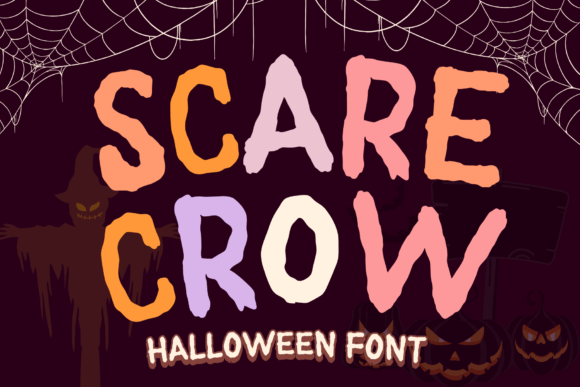
Scarecrow Font: The Perfect Halloween Decorative Font for Your Projects
As the spookiest season approaches, designers and crafters are on the lookout for the perfect font to add a touch of Halloween magic to their projects. Look no further than the Scarecrow Font, a playful and authentic decorative font that’s ideal for a wide range of applications. In this article, we’ll explore the features and benefits of the Scarecrow Font, and show you how to make the most of this fantastic font in your designs.
What is Scarecrow Font?
The Scarecrow Font is a Halloween-themed decorative font designed to evoke the playful and spooky spirit of the season. With its rustic, hand-drawn feel, this font is perfect for adding a touch of autumnal charm to your projects. Whether you’re creating blog posts, logos, branding materials, ads, invitations, greeting cards, planners, photo albums, or decorations, the Scarecrow Font is the perfect choice.
Why Choose Scarecrow Font?
So why choose the Scarecrow Font for your Halloween projects? Here are just a few reasons:
- Playfulness: The Scarecrow Font is designed to be playful and fun, making it perfect for projects that require a lighthearted touch.
- Authenticity: With its rustic, hand-drawn feel, the Scarecrow Font has an authentic, homemade quality that’s perfect for creating unique and eye-catching designs.
- Versatility: The Scarecrow Font can be used for a wide range of projects, from blog posts and logos to invitations and decorations.
10 Project Ideas for Scarecrow Font
Here are just a few project ideas to get you started with the Scarecrow Font:
- Blog posts: Add a touch of Halloween magic to your blog posts with the Scarecrow Font. Use it for headings, titles, and even body text to create a spooky and inviting atmosphere.
- Logos and branding: Create a unique and eye-catching logo for your business or brand with the Scarecrow Font. Perfect for seasonal promotions or limited-time offers.
- Ads and flyers: Use the Scarecrow Font to create attention-grabbing ads and flyers for your Halloween-themed promotions.
- Invitations: Create spooky and inviting invitations for your Halloween party or event with the Scarecrow Font.
- Greeting cards: Design unique and personalized greeting cards for your friends and family with the Scarecrow Font.
- Planners and organizers: Add a touch of Halloween magic to your planners and organizers with the Scarecrow Font. Perfect for seasonal planning and goal-setting.
- Photo albums: Create a spooky and memorable photo album with the Scarecrow Font. Perfect for capturing memories of your Halloween celebrations.
- Decorations: Use the Scarecrow Font to create eye-catching decorations for your home or office. Perfect for adding a touch of Halloween magic to your space.
- Social media graphics: Create spooky and engaging social media graphics with the Scarecrow Font. Perfect for promoting your Halloween-themed content.
- Party banners: Design a spooky and inviting party banner with the Scarecrow Font. Perfect for creating a memorable and Instagram-worthy moment.
Font Pairing Suggestions
To get the most out of the Scarecrow Font, try pairing it with other fonts that complement its playful and rustic feel. Here are a few font pairing suggestions:
- Open Sans: A clean and modern sans-serif font that pairs well with the Scarecrow Font’s rustic feel.
- Lato: A sleek and elegant sans-serif font that complements the Scarecrow Font’s playful touch.
- Merriweather: A classic and elegant serif font that pairs well with the Scarecrow Font’s rustic feel.
Tips and Tricks for Using Scarecrow Font
Here are a few tips and tricks for getting the most out of the Scarecrow Font:
- Experiment with font sizes: Play around with different font sizes to create visual interest and hierarchy in your designs.
- Use font colors wisely: Choose font colors that complement your design’s color scheme and add contrast to your text.
- Add textures and effects: Experiment with adding textures and effects to your text to give it a more rustic and handmade feel.
In conclusion, the Scarecrow Font is a fantastic choice for any Halloween-themed project. With its playful and authentic feel, this font is perfect for adding a touch of spooky magic to your designs. Whether you’re a designer, crafter, or DIY enthusiast, the Scarecrow Font is sure to become a favorite in your font collection.